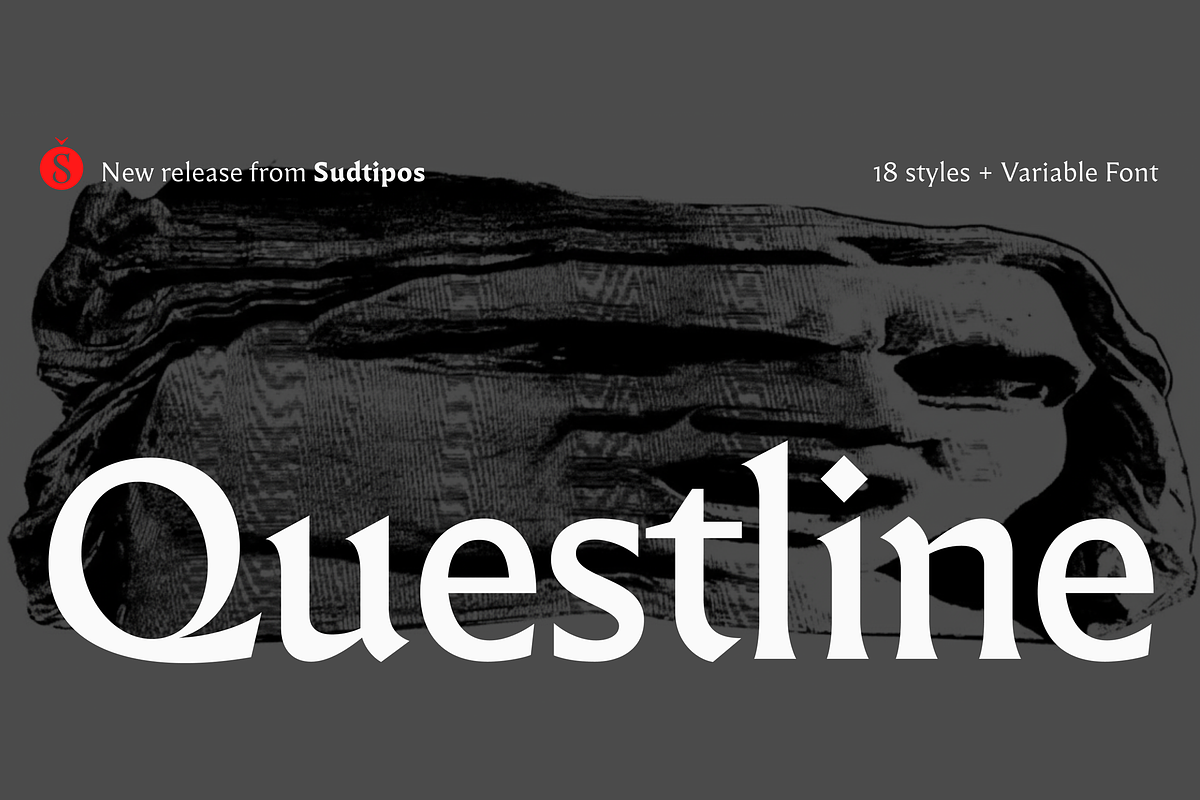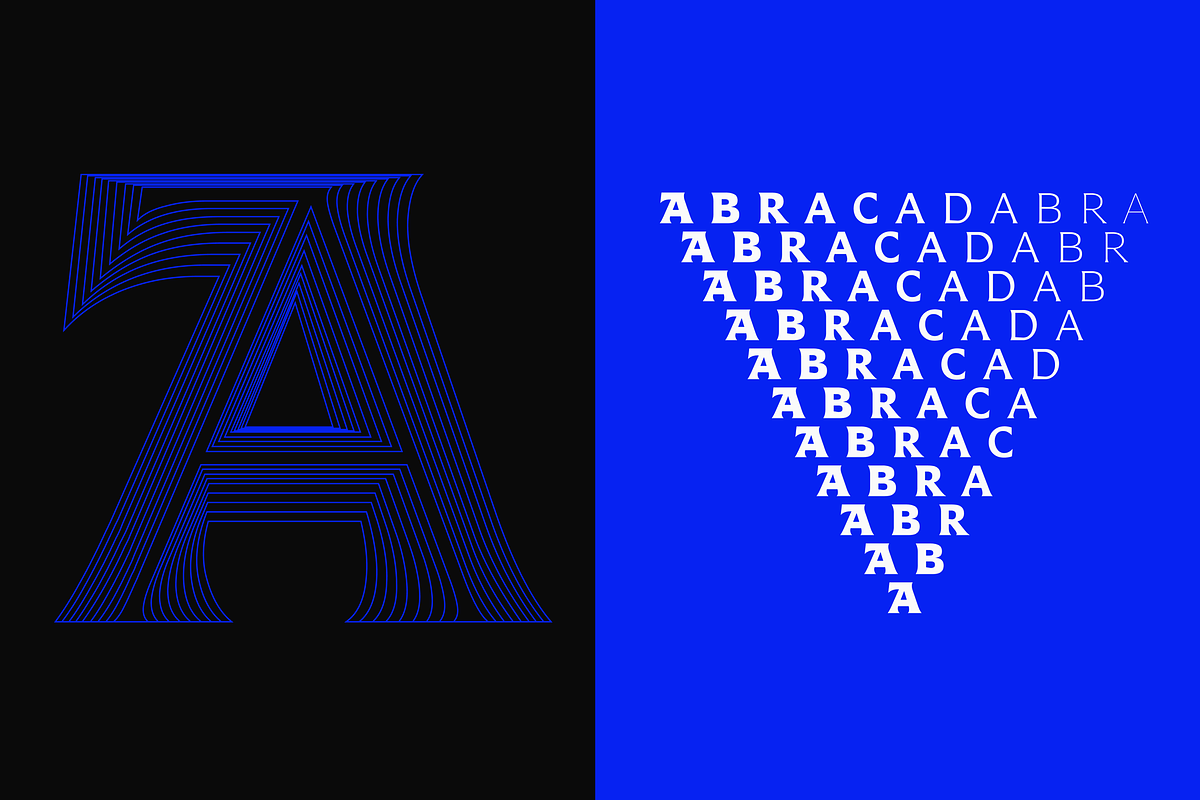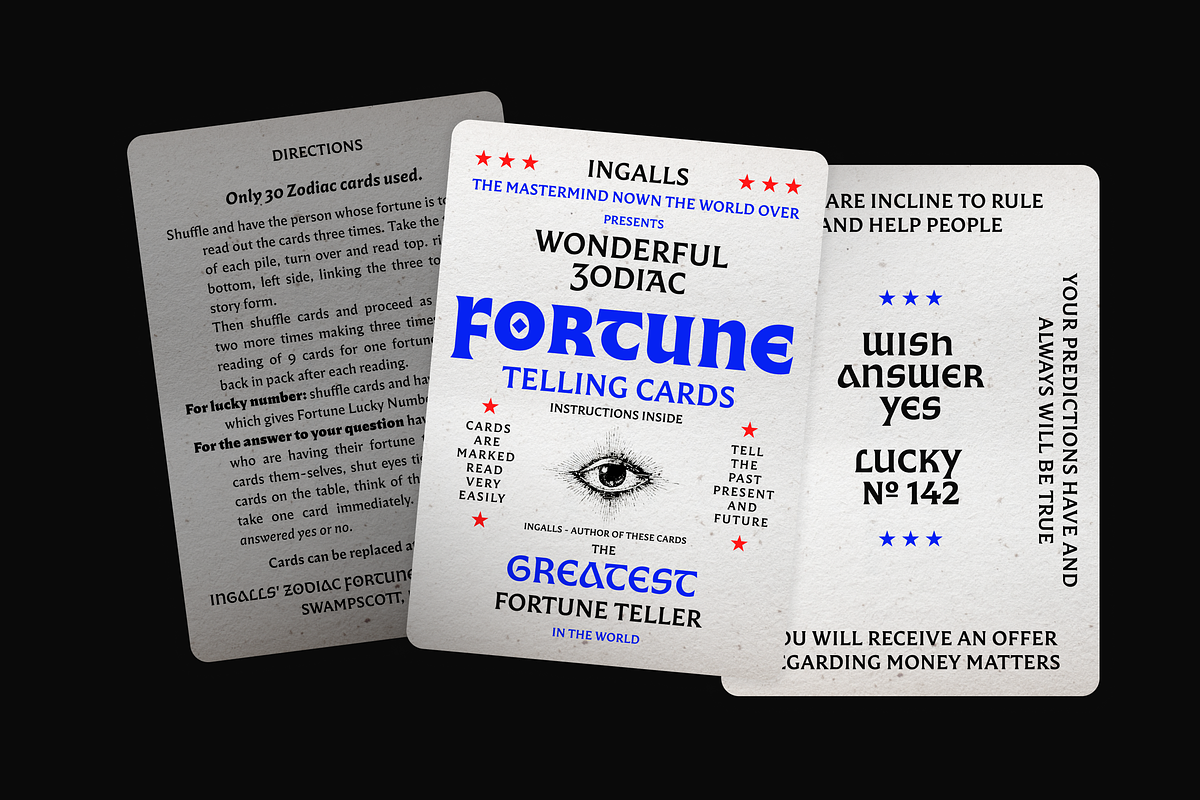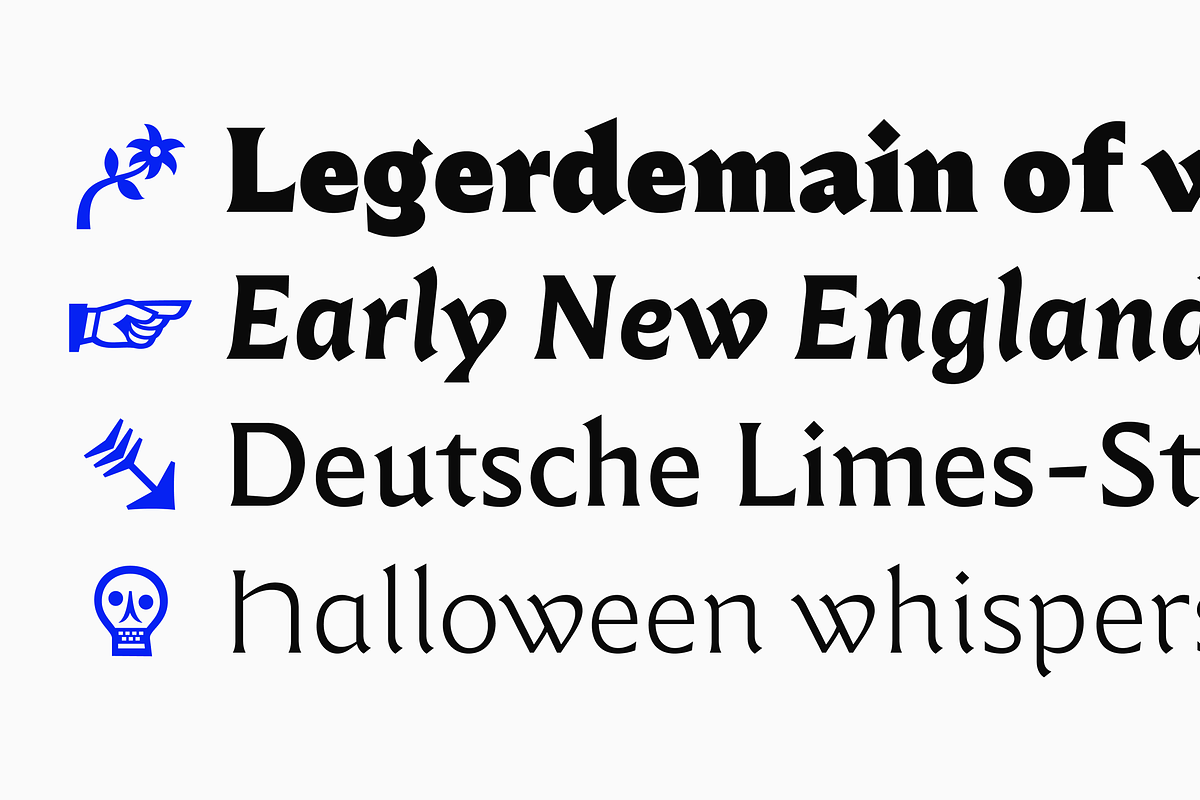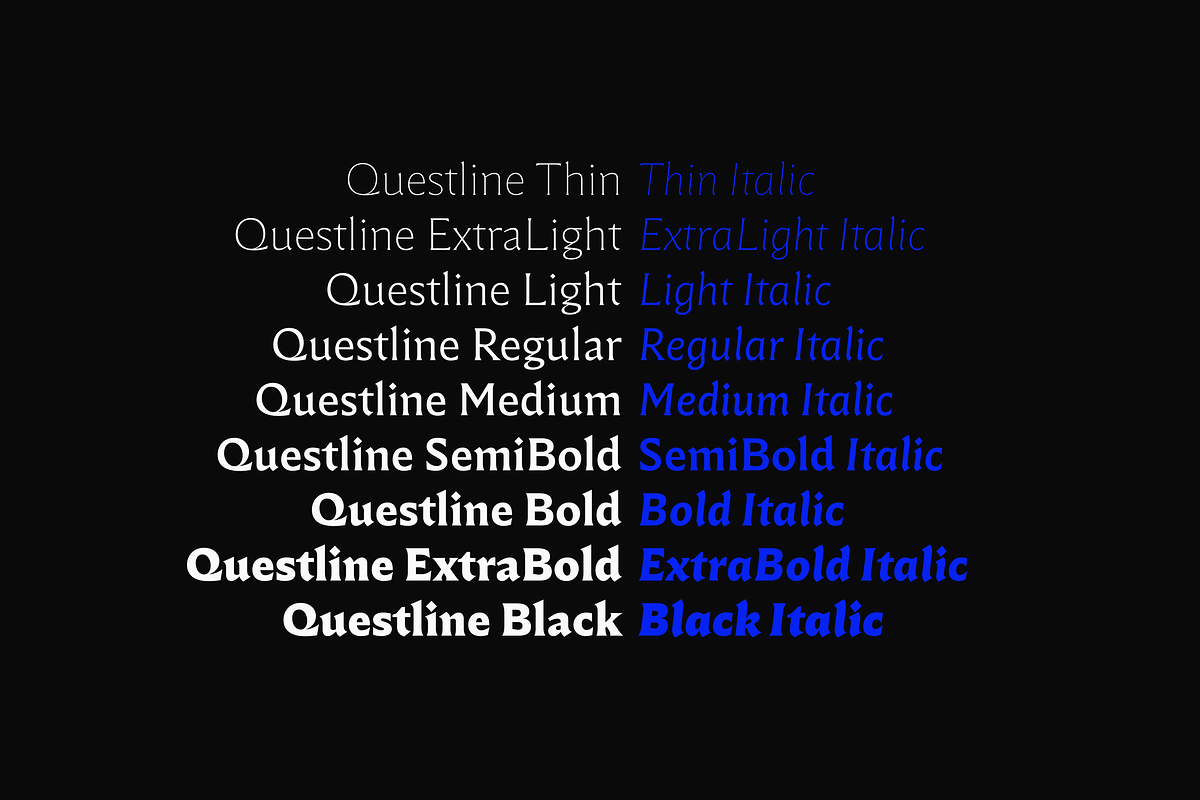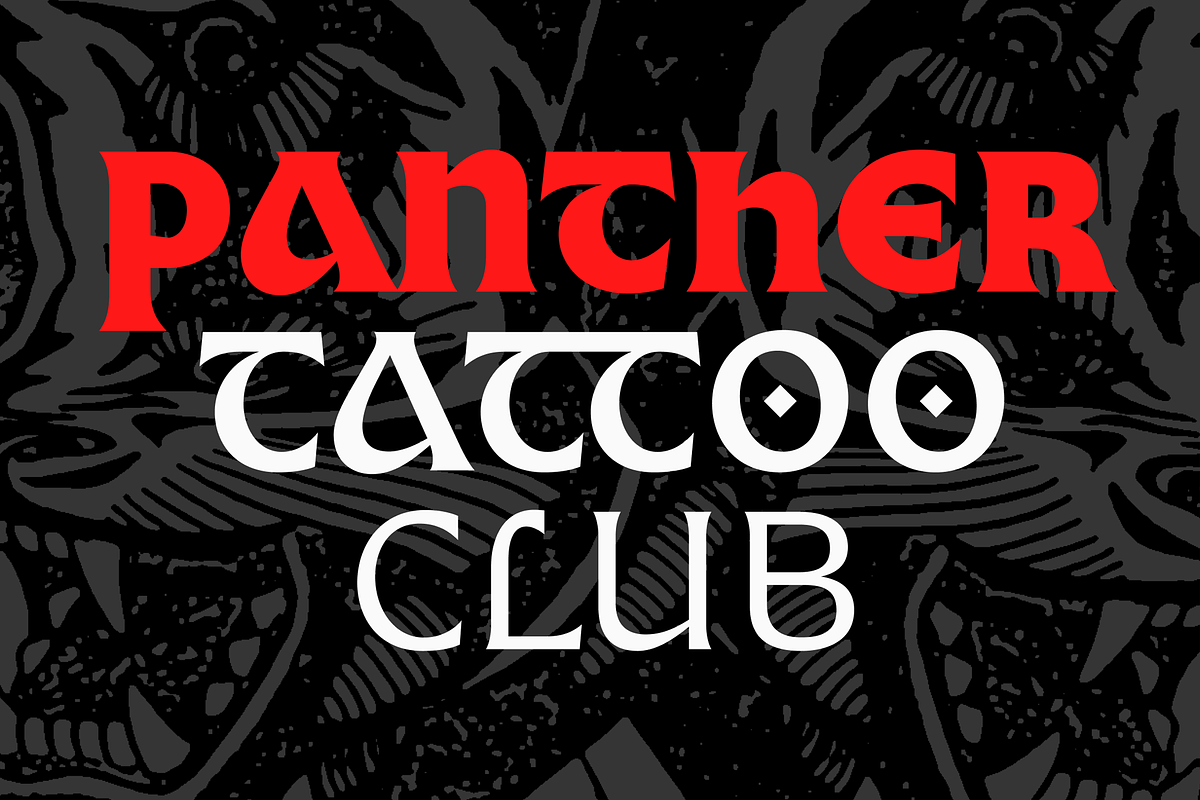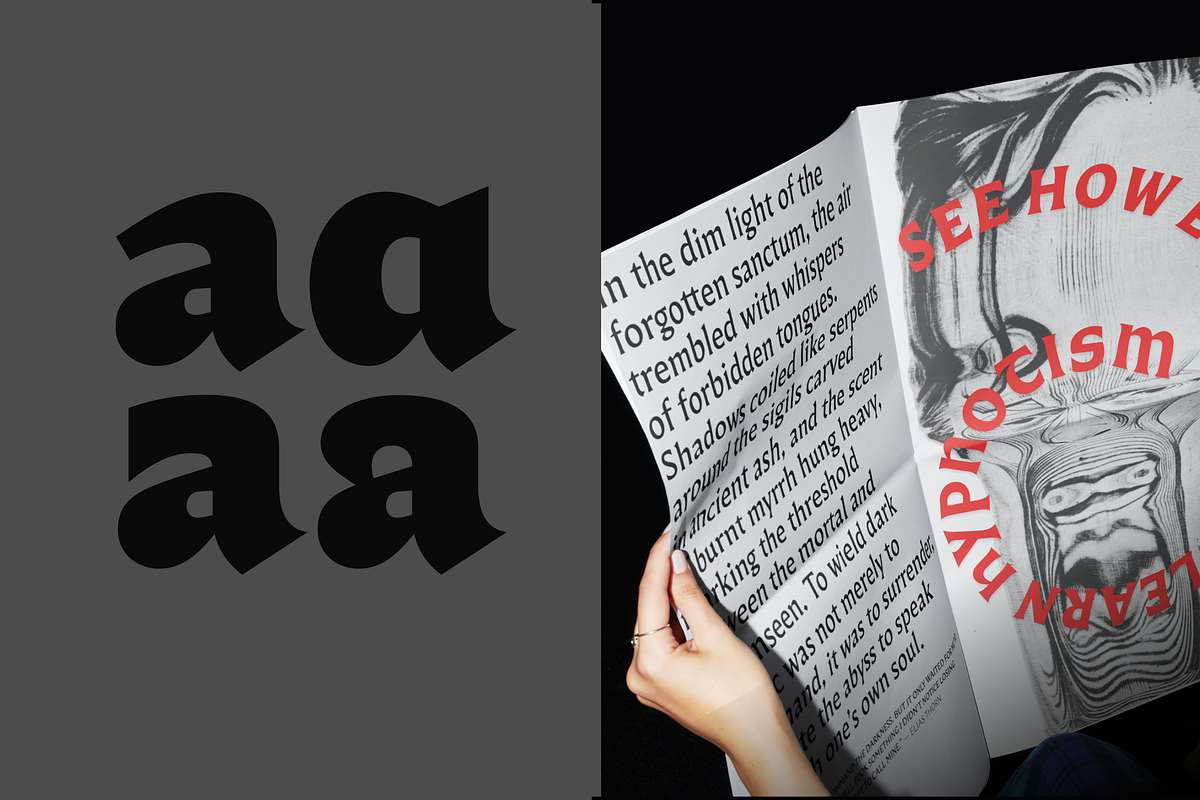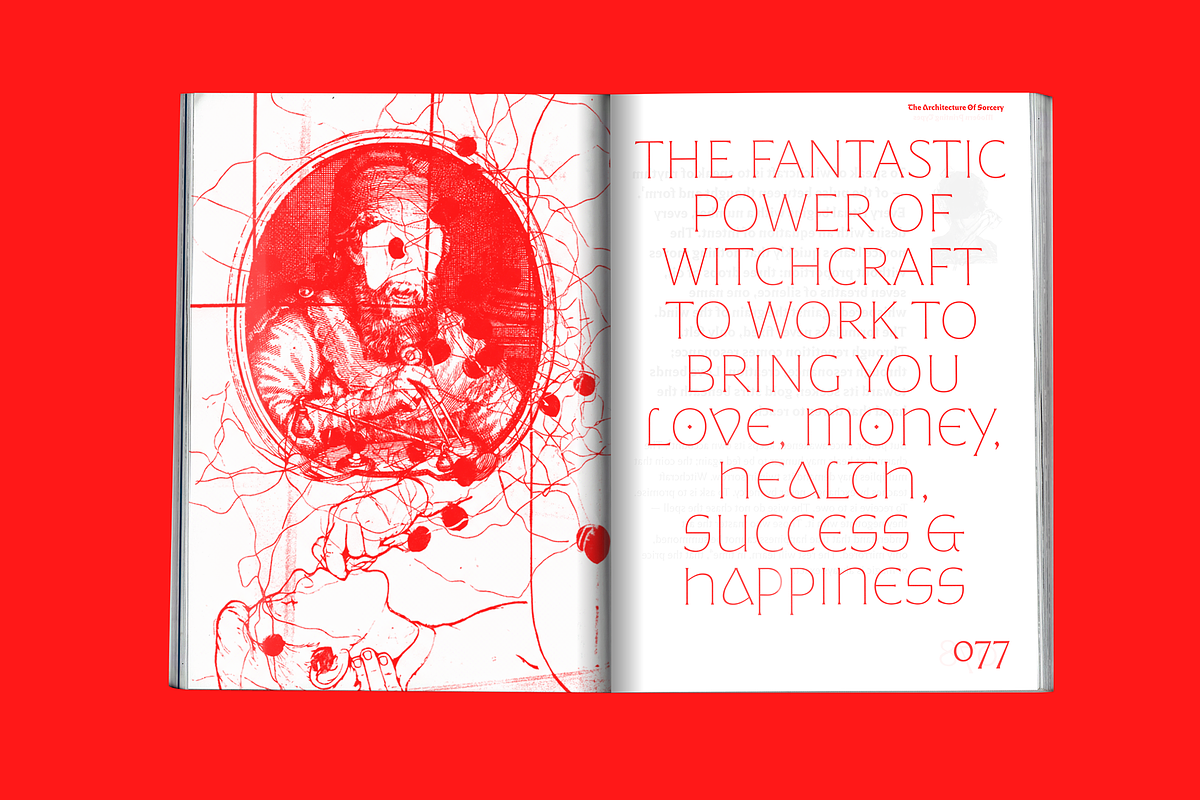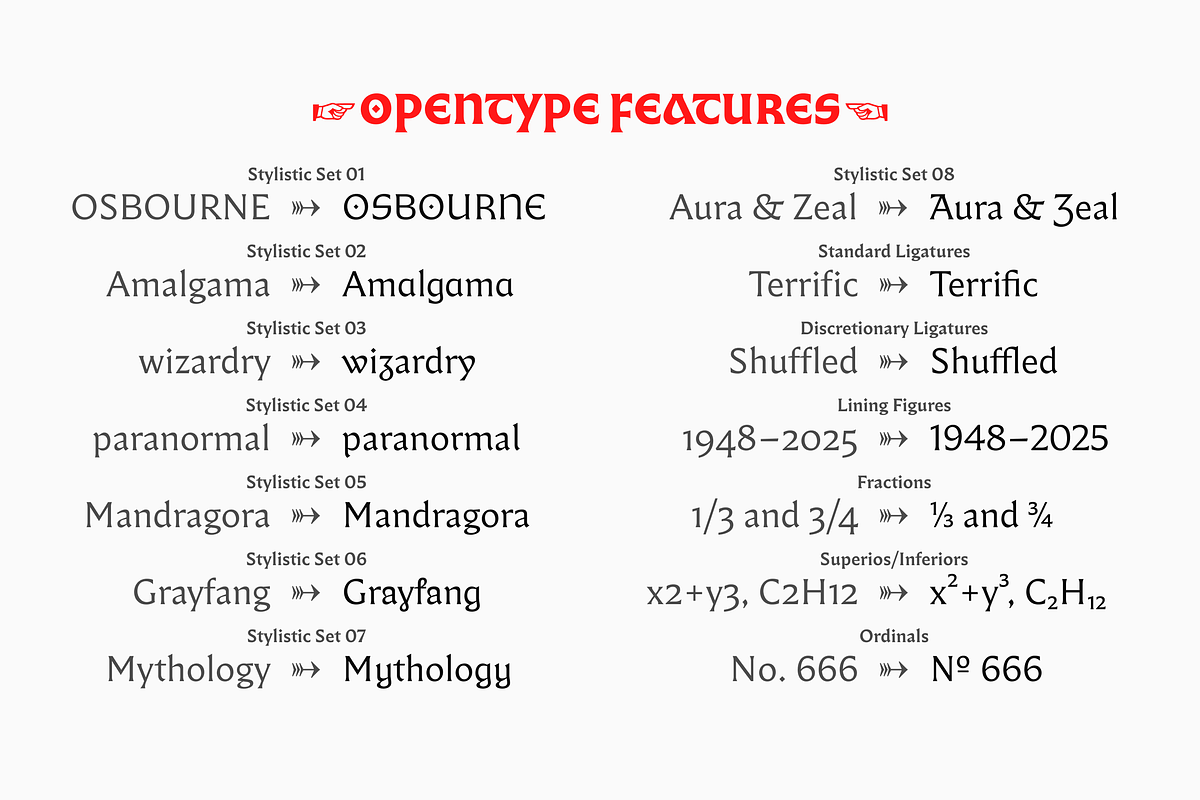
Questline
Timeless forms, modern presence.
Questline blends the elegance of Roman type with the structural strength of Gothic forms, resulting in a contemporary flared serif font grounded in historical tradition. Reimagining medieval letterforms through meticulous research and refined craftsmanship, its design balances contrast, rhythm, and optical precision.
The typeface features consistent stroke modulation and carefully calibrated proportions that maintain visual harmony between uppercase and lowercase, along with a dedicated set of Gothic-inspired uppercase forms that provide a distinctive typographic voice. Ensuring legibility and character in both expressive display and extended reading environments.
Equipped with multiple OpenType features, extensive language support, and a character set of over 750 glyphs, Questline spans 18 styles (nine weights + matching italics). Its refined detailing and structural versatility make it highly effective across both print and digital applications, delivering a cohesive and boldly confident visual presence.